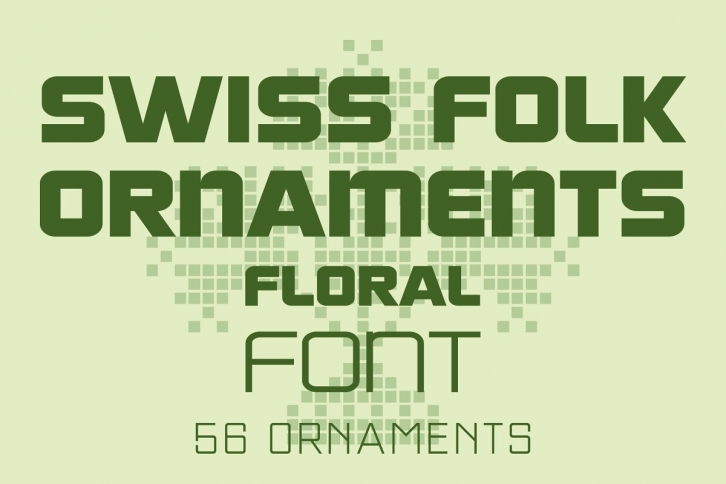
Swiss Folk Ornaments - Floral font was inspired by old Swiss embroidery designs. It is composed of floral designs. There are a total of 56 ornaments in this font.